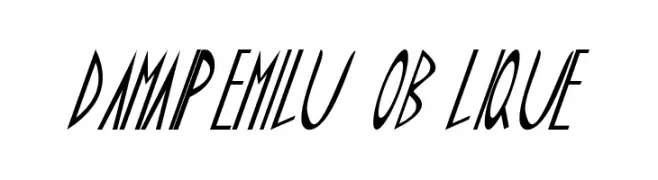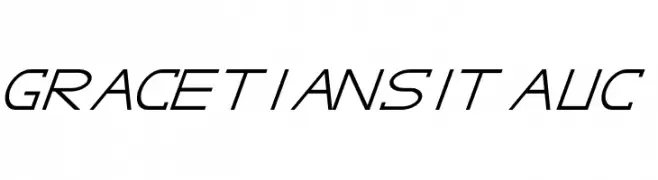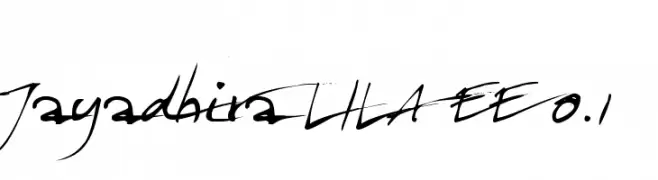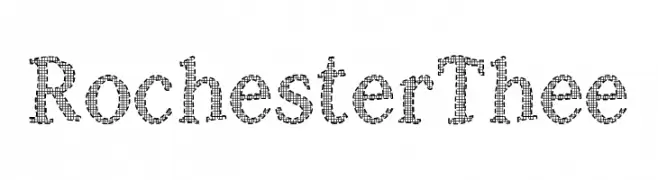
A classic, elegant calligraphic font with graceful curves and fluid motion.
A dynamic, oblique font with sharp angles and high contrast, exuding energy and motion.
A dynamic script font with calligraphic elegance and fluid motion.
A dynamic, expressive handwritten font with energetic strokes and fluid motion.
A bold, dynamic font with a distorted, motion-inspired style.
A dynamic italic font with smooth, consistent strokes and a lively appearance.
A bold, dotted font with a playful and dynamic pop art style.
A modern, italicized font with sleek, uniform strokes and a sense of motion.
A decorative font with a mosaic-like texture and elegant serif forms.